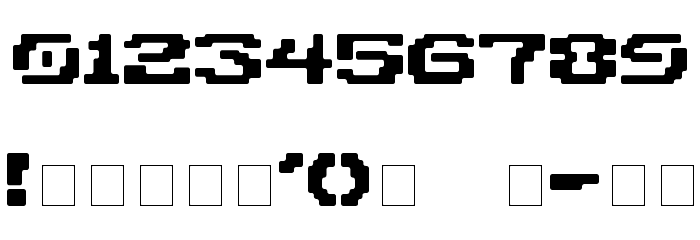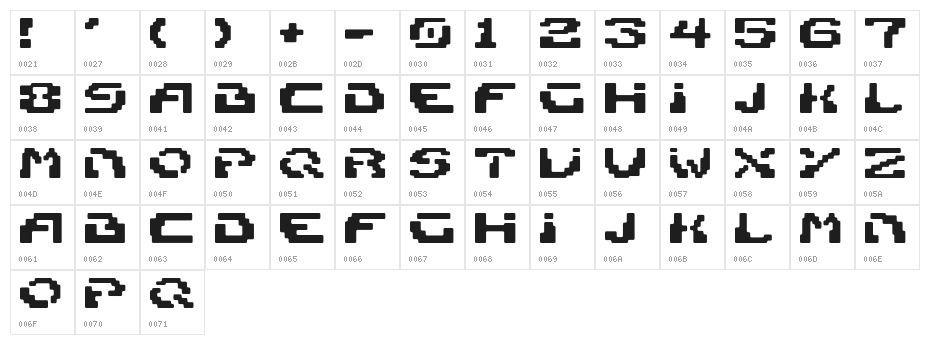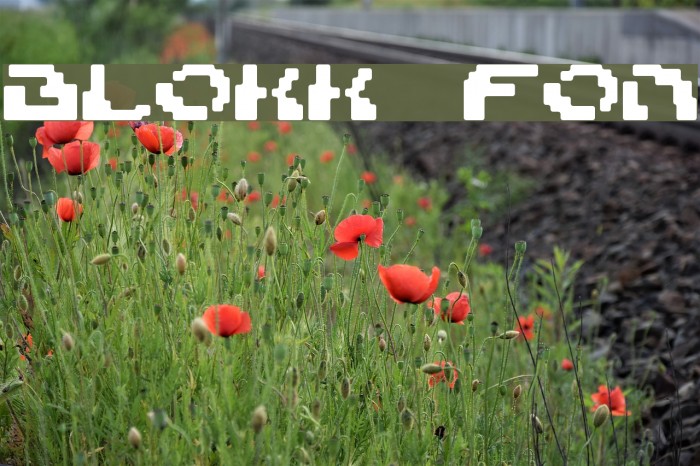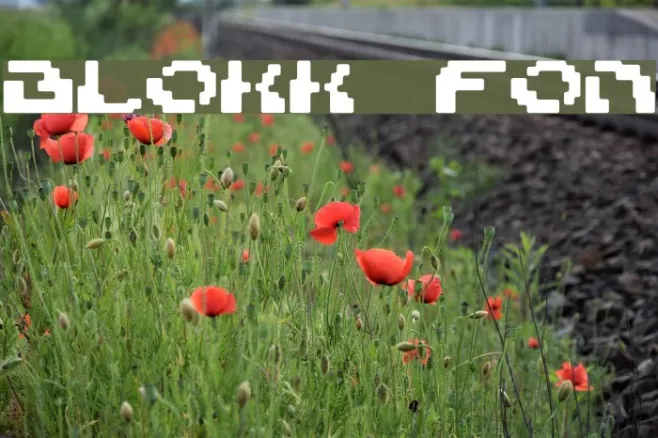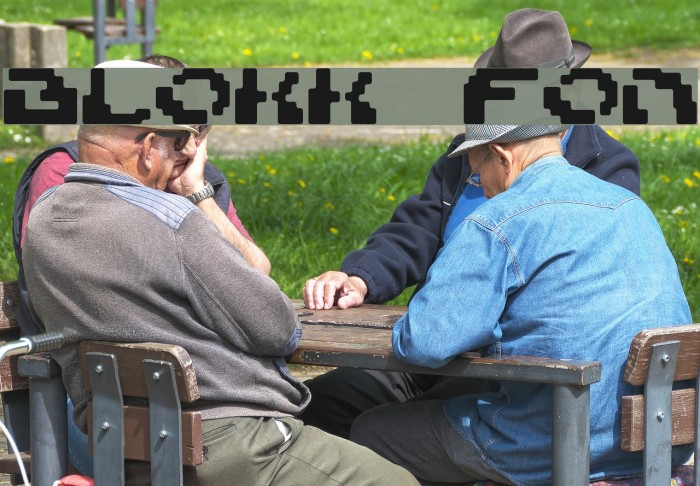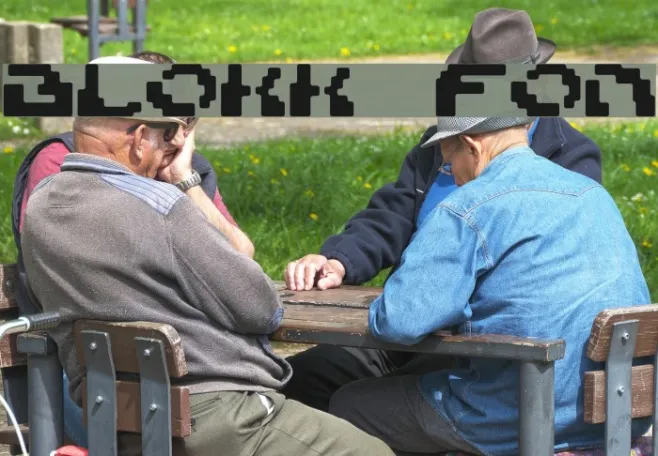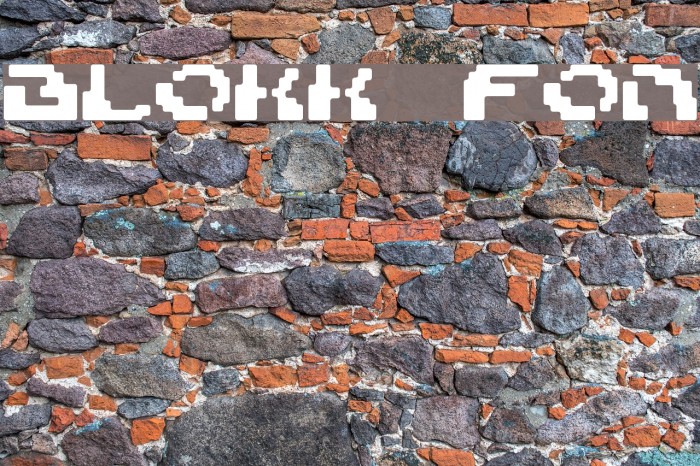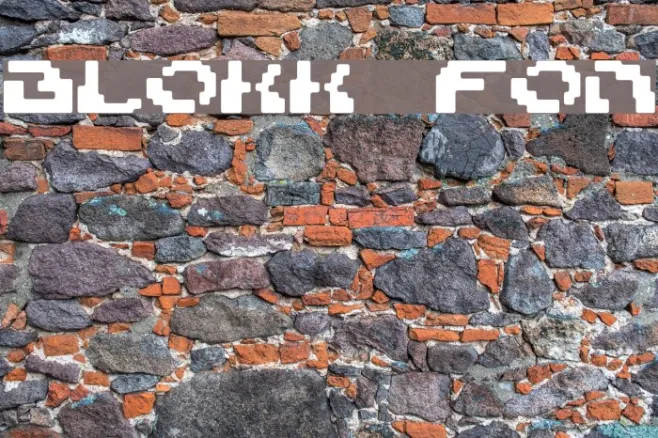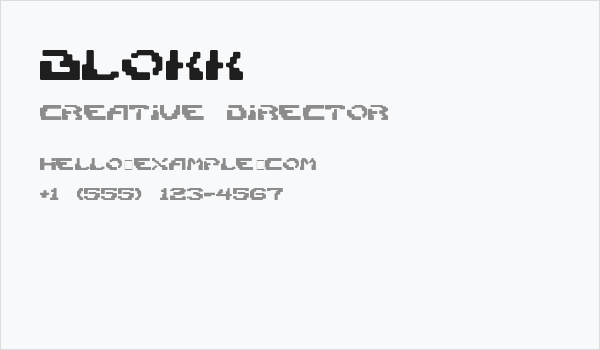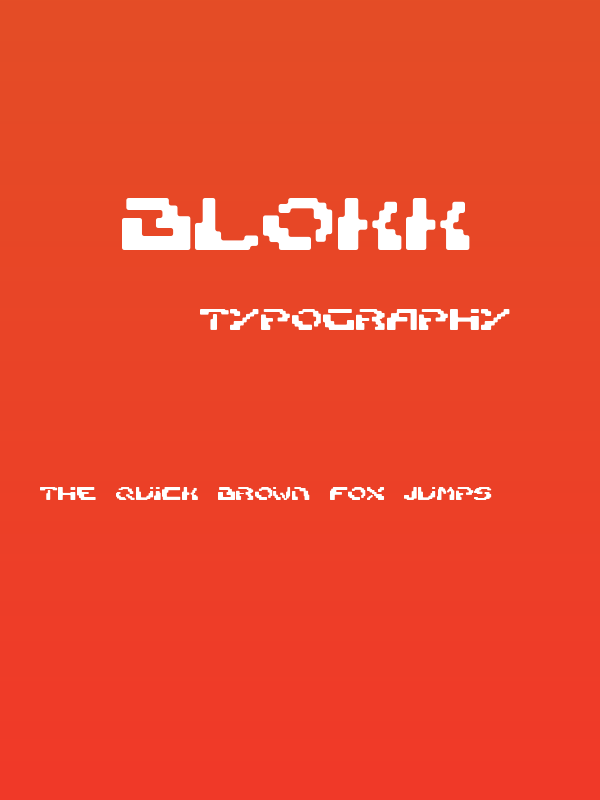
Blokk Font
Blokk Description
This font features a bold, blocky design with a pixelated aesthetic reminiscent of early digital displays or video game graphics. Each character is constructed with a series of sharp, angular edges and uniform stroke widths, creating a cohesive and striking visual impact. The uppercase and lowercase letters maintain a consistent style, with a geometric approach that emphasizes clarity and legibility. The numbers and special characters follow the same design principles, ensuring a uniform appearance across all glyphs. This font's unique style makes it ideal for projects that require a retro or tech-inspired look.
| Proposed Projects | Ideal for video game design, tech-themed posters, retro branding, and digital art projects. |